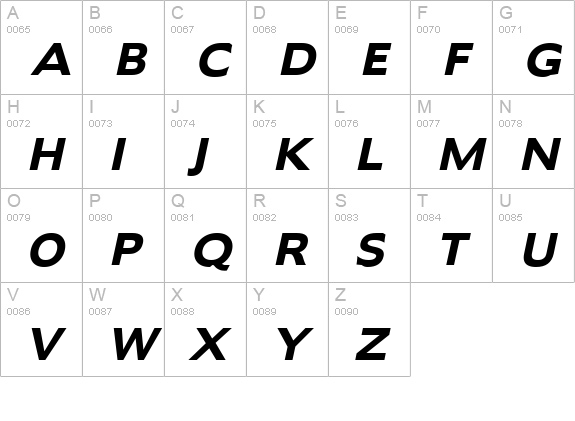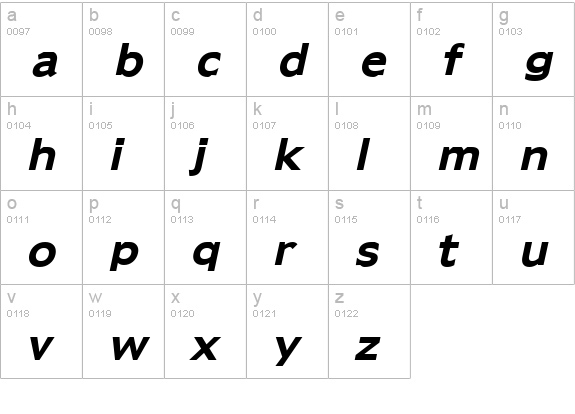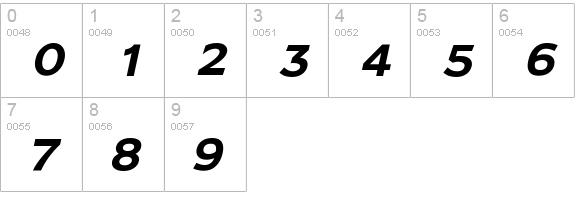
Adams Bold Italic Font Details
Adams Bold Italic is a strong, high-contrast, italic variant in the Adams typeface family \xE2\x80\x94 well suited to headlines, attention-grabbing titles, and strong calls-to-action.
Adams Bold Italic font is a dynamic and eye-catching typeface that exudes strength and sophistication. Its bold yet graceful strokes make it a versatile choice for a wide range of design projects, from branding to editorial layouts. The italicized slant adds a touch of elegance and flair to any text, making it stand out with a modern and stylish appeal. This font is a must-have for designers looking to make a statement with their typography. Whether you're creating a logo, poster, or website, Adams Bold Italic font will add a touch of boldness and personality to your designs. Its versatility allows it to be used in both large headlines and smaller body text, ensuring consistency and readability across a variety of applications. Best of all, Adams Bold Italic font is available for free download at FontsMarket.com. This means you can easily access this high-quality typeface without any cost, making it a valuable addition to your font library. Don't miss out on the opportunity to enhance your designs with the striking beauty of Adams Bold Italic font. Download it today and elevate your projects to the next level.